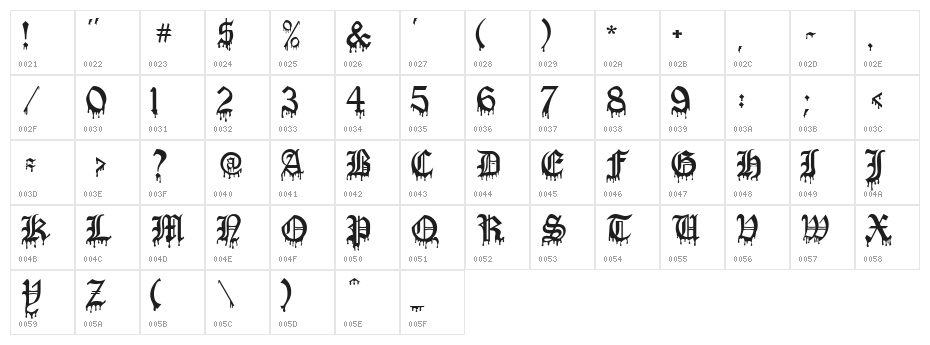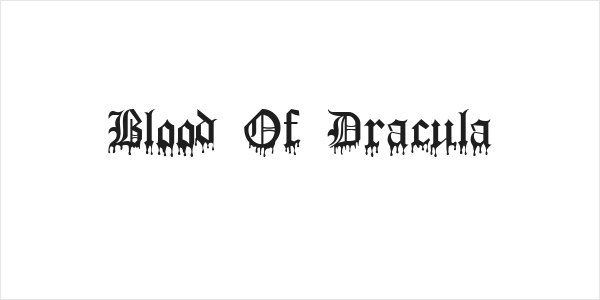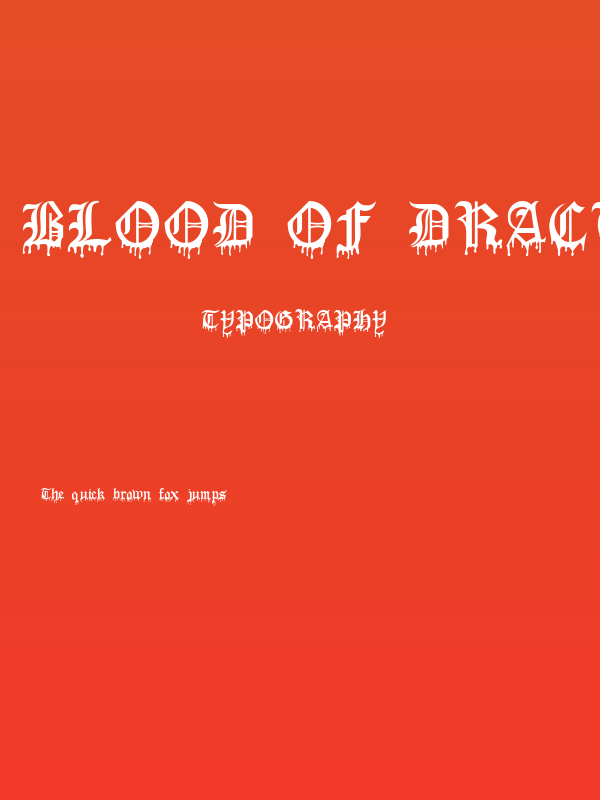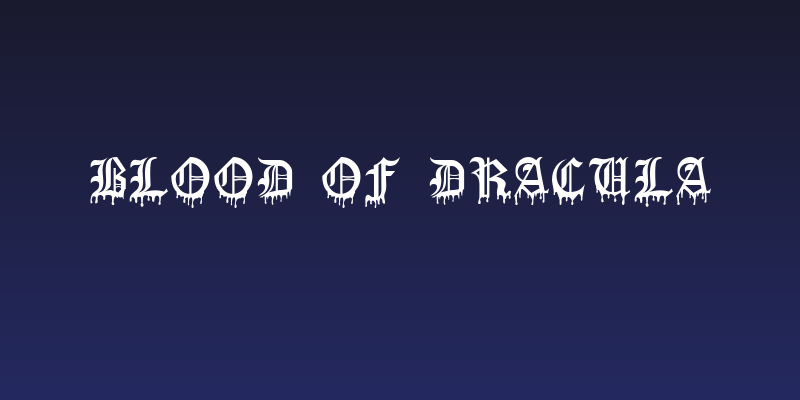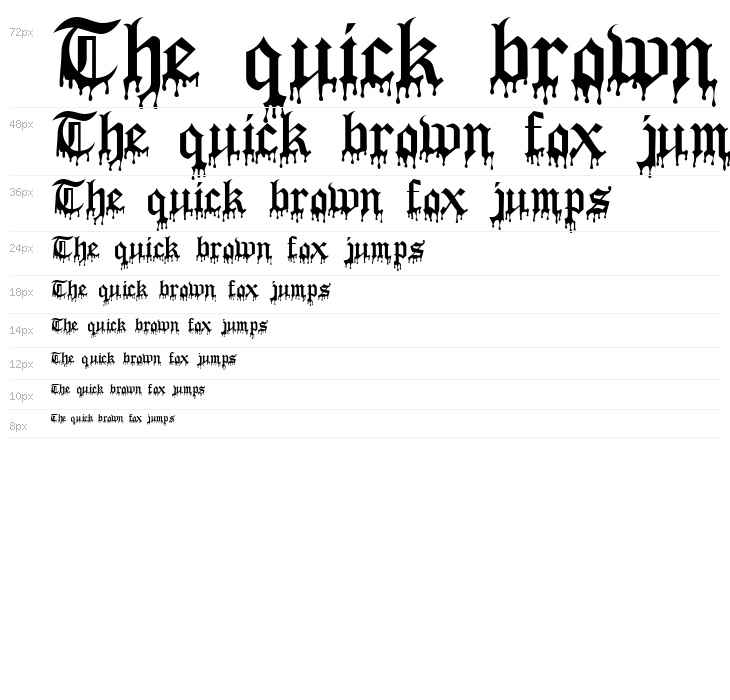
Blood Of Dracula Font
Blood Of Dracula Description
This font features a gothic and eerie style, reminiscent of classic horror themes. Each character is adorned with dripping elements that mimic the appearance of blood, enhancing its spooky aesthetic. The uppercase and lowercase letters maintain a consistent gothic script style, with sharp edges and pointed serifs that add to the dramatic flair. The numbers and special characters follow the same design, ensuring a cohesive look across all text. This font is perfect for creating a chilling atmosphere in any project, making it ideal for Halloween-themed designs or horror movie posters.
| Overall Style | Gothic, Horror |
| Use Case | Headlines, Logos, Themed Events |
| Proposed Projects | Ideal for Halloween invitations, horror movie posters, haunted house flyers, and spooky event branding. |